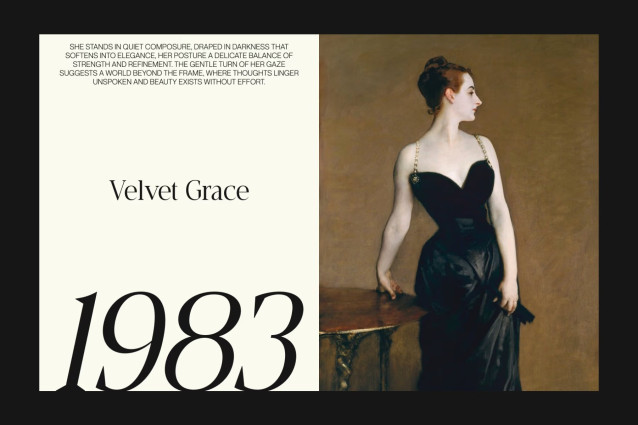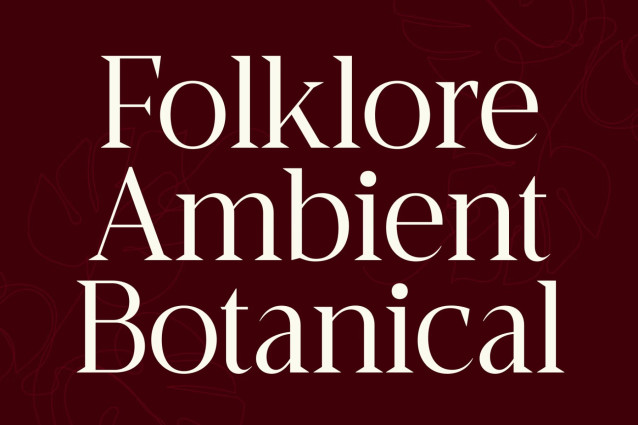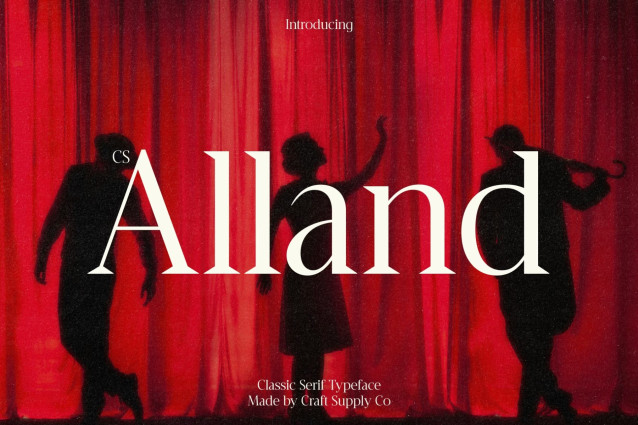
CS Alland – Classic Serif Font
CS Alland – Modern Classic Serif Font: Where Elegance Meets Contemporary Refinement
Modern Classic Serif Font
This is a modern classic serif font defined by its long, slender serifs and clean contemporary structure. It blends traditional serif sophistication with modern precision, creating a refined typographic voice that feels both timeless and fresh. The result is a luxurious visual tone that elevates any design with subtle authority and graceful balance.
Elegant Long Serif Structure
The font features elongated, delicate serifs that enhance its elegant rhythm and visual flow. These refined details add a sense of high-end craftsmanship, making this font perfect for luxury-focused design work. Each character is carefully shaped to maintain harmony and readability while delivering a distinctive premium feel.